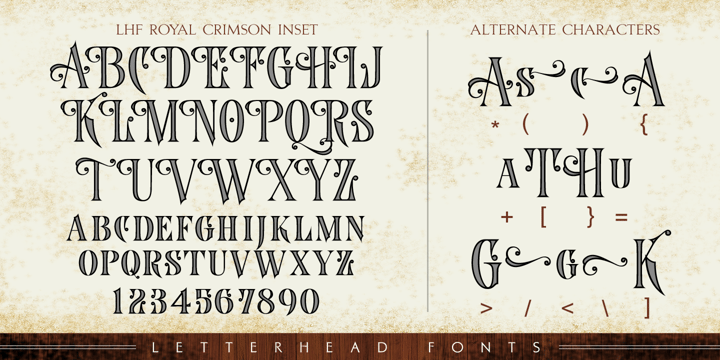
LHF Royal Crimson™
by Letterhead Fonts
The LHF Royal Crimson Font Family was designed by Denise Bayers and published by Letterhead Fonts. LHF Royal Crimson contains 3 styles and family package options.
• LHF Royal Crimson Regular
• LHF Royal Crimson Inset
• LHF Royal Crimson Shadow
Designers: Denise Bayers
Publisher: Letterhead Fonts
Foundry: Letterhead Fonts